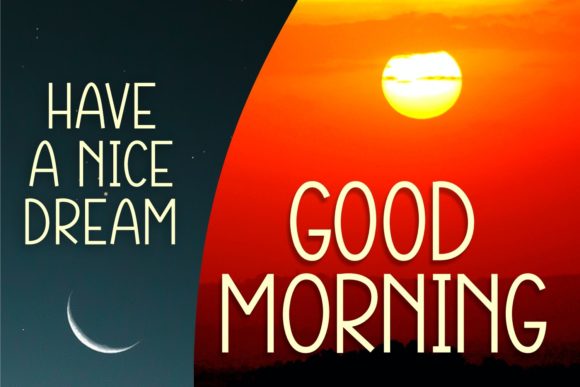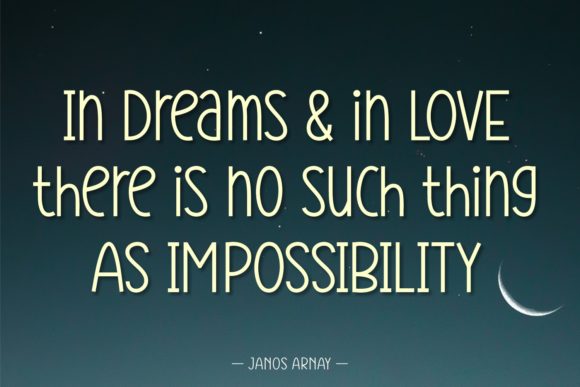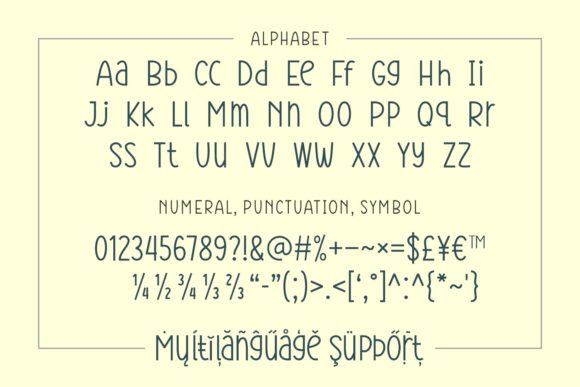
Introduction to Holbug Font
Have you ever been working on a creative project, pouring your heart and soul into the details, only to be limited by the design resource you’re using? That’s exactly what happened to me when I stumbled upon the Holbug Font. I was trying to create a digital design for a friend’s birthday card, but the font I was using just wasn’t cutting it. It was cluttered, hard to read, and just didn’t have that special something that would make the design truly pop.
That’s when I discovered the Holbug Font – a beautiful, minimalistic sans serif typeface that has since become my go-to design resource. With its clean lines and transparent background, it’s the perfect addition to any creative project, from modern prints and digital designs to kid’s crafts and beyond.
Key Features of Holbug Font
- Comes with a transparent background, allowing for seamless integration into any design
- Unique, modern design with a touch of elegance, making it perfect for high-end creative projects
- Perfect for use in graphic design, web design, and digital publishing
Honest Review: Holbug Font
I recently stumbled upon the Holbug Font while searching for a design resource to enhance my creative project. At first glance, I was drawn to its unique and quirky style. After using it, I have to say that it’s been a game-changer for my designs.
Here are some of the things that work well with the Holbug Font:
- ✨ Highly versatile: It can be used for a wide range of creative projects, from branding to editorial content.
- ✨ High quality: The font is crisp and clear, making it perfect for both digital and print applications.
- ✨ Transparent background: This feature makes it easy to place the font on top of any background, giving you more flexibility in your design.
- ⚠️ Limited font weights: The Holbug Font only comes in a few weights, which may limit its use in certain situations.
- ⚠️ Not ideal for long blocks of text: The font’s quirky style may not be suitable for large amounts of text, making it more suitable for headings and titles.
Overall, I’m really impressed with the Holbug Font and would highly recommend it to anyone looking for a unique and high-quality design resource.
Tips for Getting the Most Out of Holbug Font
Use Holbug Font for headings and titles to add a touch of elegance to your design. Experiment with different font sizes and colors to create visual interest. Pair Holbug Font with other fonts to create a unique and creative look.